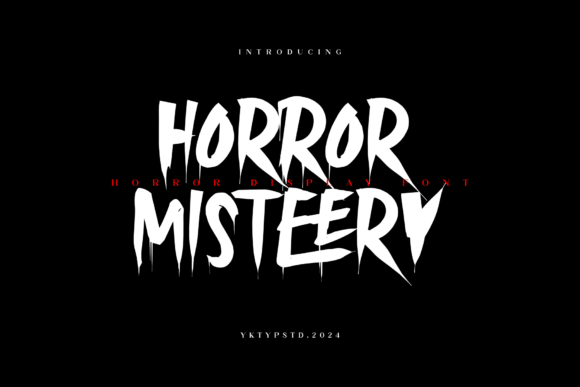
The Darkness Beckons: Unveiling the Horror Misteery Font
Imagine yourself huddled in a dimly lit room, surrounded by flickering candles and the eerie whispers of the unknown. You’re working on a project that requires a font that exudes an otherworldly aura, a typographic embodiment of the darkness that lurks within. As you search for the perfect font, your fingers hover over the keyboard, and suddenly, it appears – the Horror Misteery Font, a chilling display typeface that sends shivers down your spine.
This masterfully crafted font is an ideal fit for any project that requires an air of foreboding and suspense. Whether you’re designing a horror movie poster or creating a haunted house attraction, the Horror Misteery Font is an invaluable asset in your design arsenal. Its eerie allure will captivate your audience and transport them to a realm of fear and uncertainty.
Key Features of “Horror Misteery Font”
- Font Family: Horror Misteery, with multiple font styles (Regular, Bold, Italic, Bold Italic) and ligatures.
- Unique Characteristics: Distressed and horror-themed font design with intricate details, making it perfect for dark, mysterious, and eerie projects.
Horror Misteery Font Review
Overall, I’d say the Horror Misteery Font is a solid addition to any designer’s toolkit. ✨ The font’s unique blend of eerie and mystical elements makes it perfect for projects that require a touch of the unknown. ✨ The font’s Gothic-inspired structure and distressed textures add to its mystique, making it a great choice for horror-themed projects, mystery novels, or even dark fantasy art.
One of the standout features of this font is its versatility. ✨ It can be used for a variety of purposes, from titles and headings to body text. The font’s bold and expressive nature makes it perfect for grabbing the reader’s attention.
- ⚠️ The font’s distressed textures can be overwhelming in large blocks of text, making it difficult to read.
- ⚠️ The font’s Gothic-inspired structure can make it difficult to use in projects that require a more modern or clean aesthetic.
- ⚠️ The font’s limited character set can make it difficult to use in projects that require a wide range of special characters or symbols.
Overall, I’d recommend the Horror Misteery Font to designers who are looking for a unique and eye-catching font for their next project. While it may have some limitations, its versatility and expressiveness make it a great addition to any designer’s toolkit.
For the best results, use the Horror Misteery font in conjunction with dark, muted color schemes and eerie imagery. Experiment with different font sizes and styles to create a sense of drama and tension.
The Horror Misteery font is ideal for:
- Movie and book titles
- Horror-themed posters and graphics
- Spooky invitations and party decorations